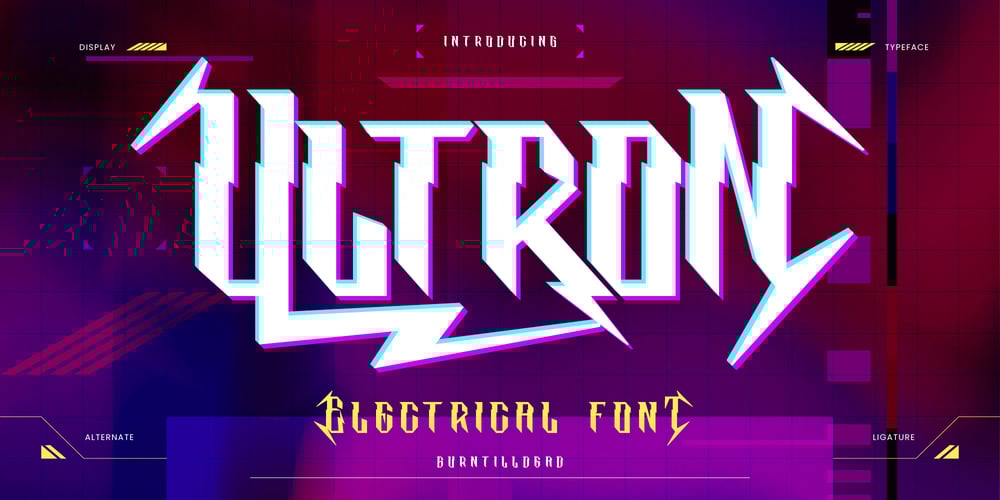
Ultron
Ultron font
Ultron Font Family was designed by Eric Kurniawan and published by Burntilldead. Ultron contains 1 styles and family package options. Bring the lightning element with Ultron. Ultron is a striking typeface style inspired by the beauty of lightning bolts. Each letter crackles with energy, offering a dynamic, uniqueness and spark the attention to any design project. This font perfectly choice for design project that need lightning element such as headlines, logos, posters, book cover and more.Features:* A – Z set (uppercase & lowercase)* Number* Punctuation* Multilingual* Alternate